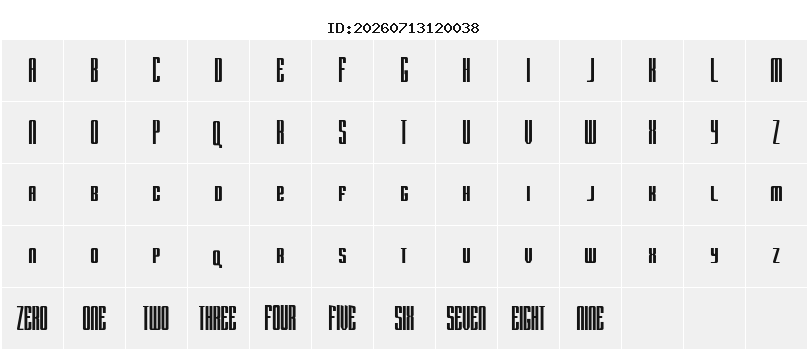
RADAR by Doug Sheets Preview
• Font Name: RADAR by Doug Sheets
• Full Font Name: RADAR by Doug Sheets
• Designer: DOUG SHEETS
About RADAR by Doug Sheets.ttf
RADAR by Doug Sheets.ttf is a modern, elegant sans-serif font designed for ultimate readability and visual harmony. Perfect for branding, headlines, web design, and print materials.